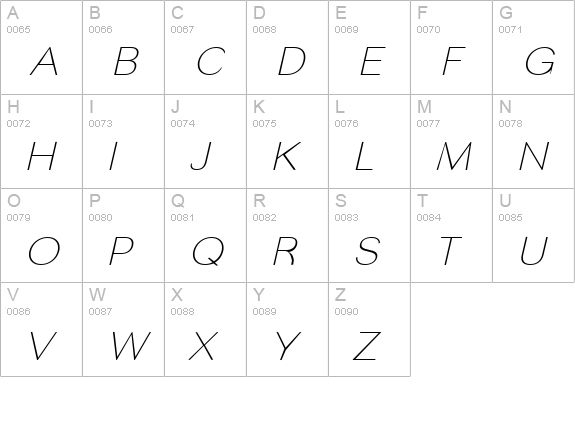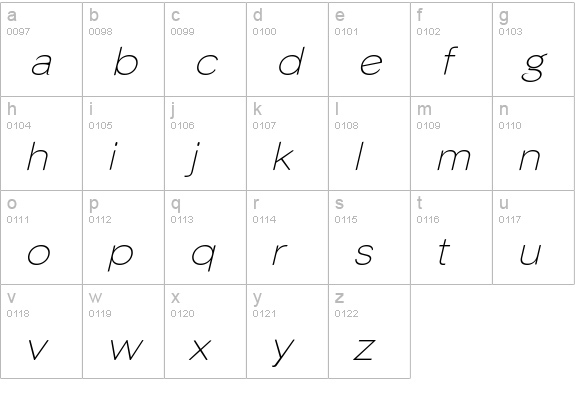
Phinster Fine Italic is a distinctive, italic variant in the Phinster typeface family \xE2\x80\x94 well suited to design and typography projects.
Phinster Fine Italic font is a delightful and elegant typeface that exudes sophistication and charm. Its sleek and slender letterforms are gracefully slanted, adding a touch of sophistication to any design project. The gentle curves and delicate strokes of this font create a sense of refinement and grace, making it perfect for luxurious branding, high-end packaging, and stylish editorial layouts. This font's versatility is another one of its standout features. It seamlessly blends into a variety of design styles, whether it be modern or traditional, making it a valuable asset for any creative project. The Phinster Fine Italic font is truly a timeless choice that adds a touch of class to any design. What's even better is that this font is freely available to download at FontsMarket.com. With just a few clicks, you can embrace the elegance and sophistication of Phinster Fine Italic font without spending a dime. This generous offer allows designers and creatives to access a high-quality typeface without breaking the bank, making it a valuable resource for both professionals and enthusiasts alike. So why wait? Elevate your designs with the exquisite charm of Phinster Fine Italic font. Download it for free at FontsMarket.com and let the elegance and grace of this typeface transform your projects into works of art.